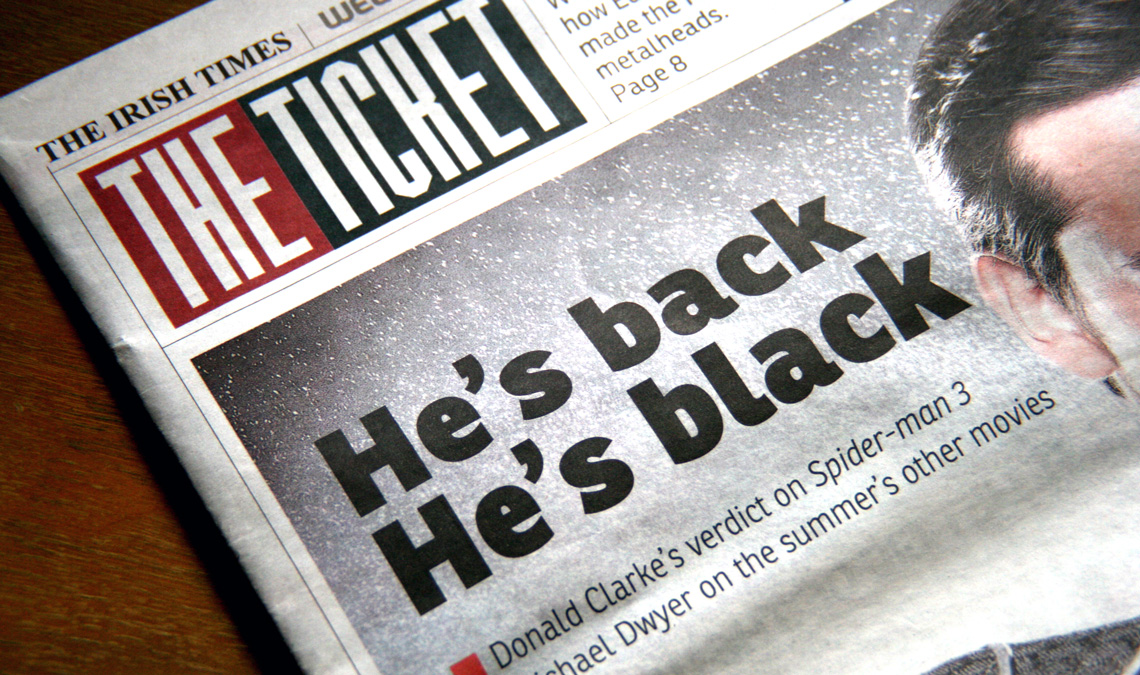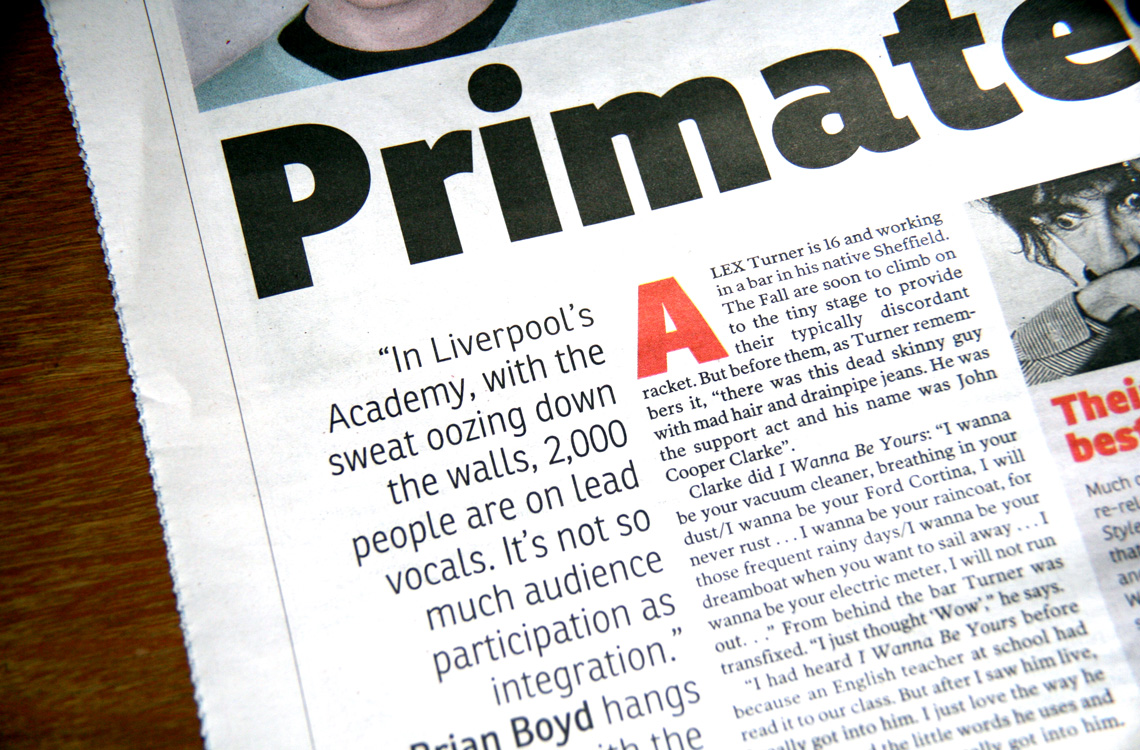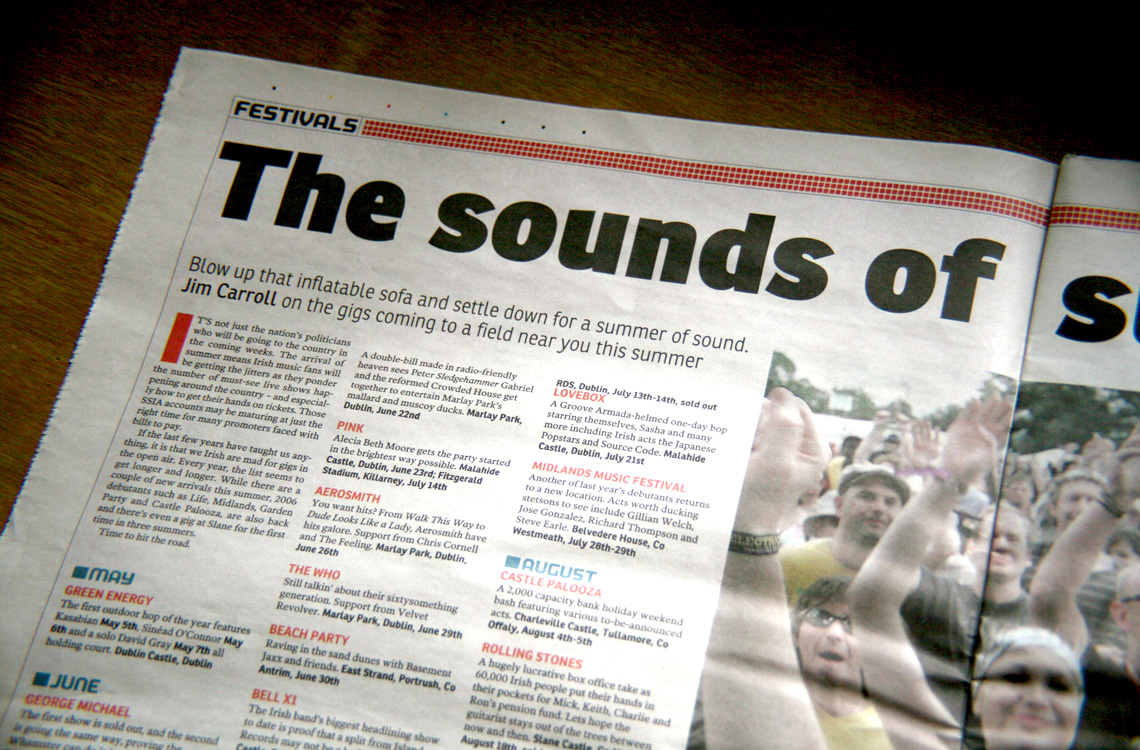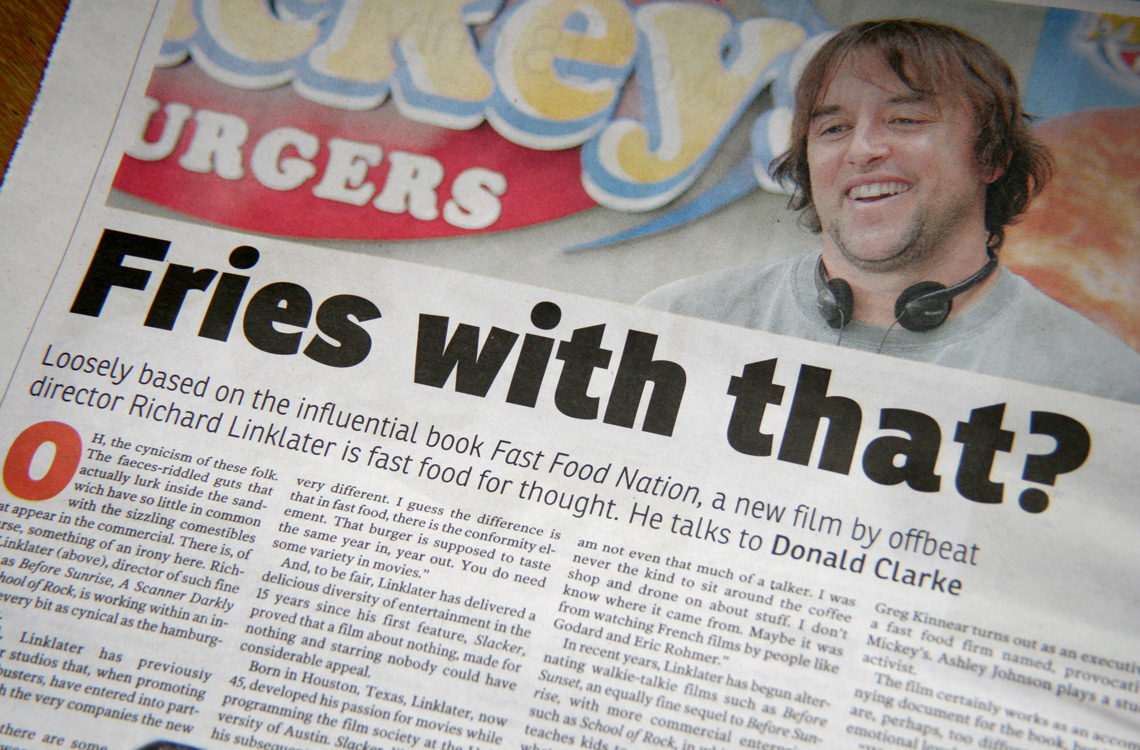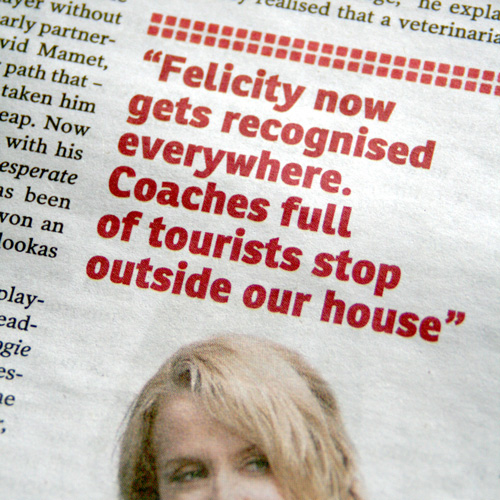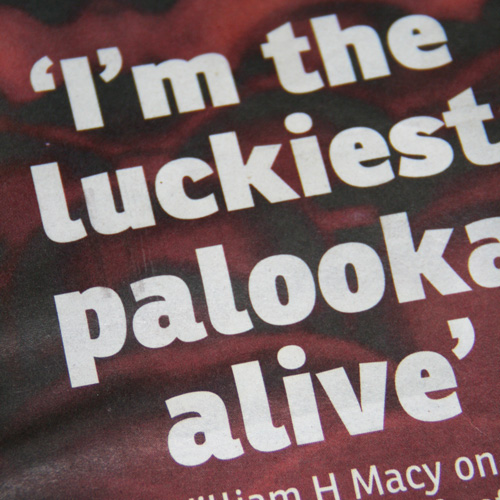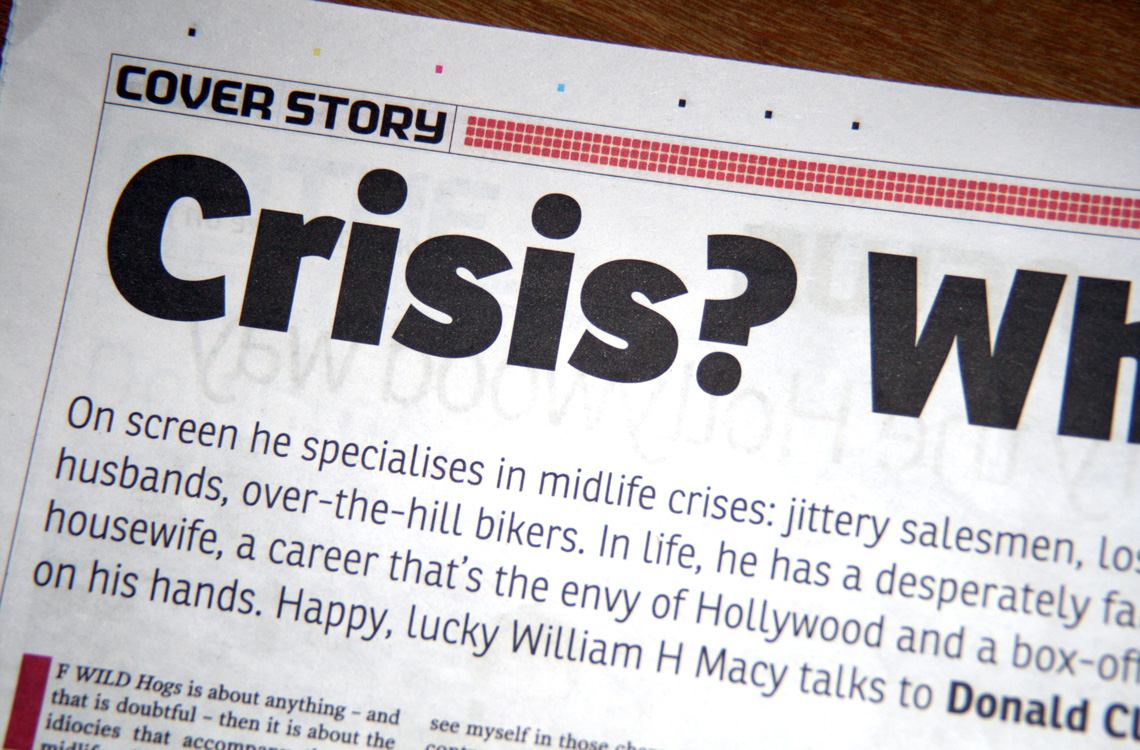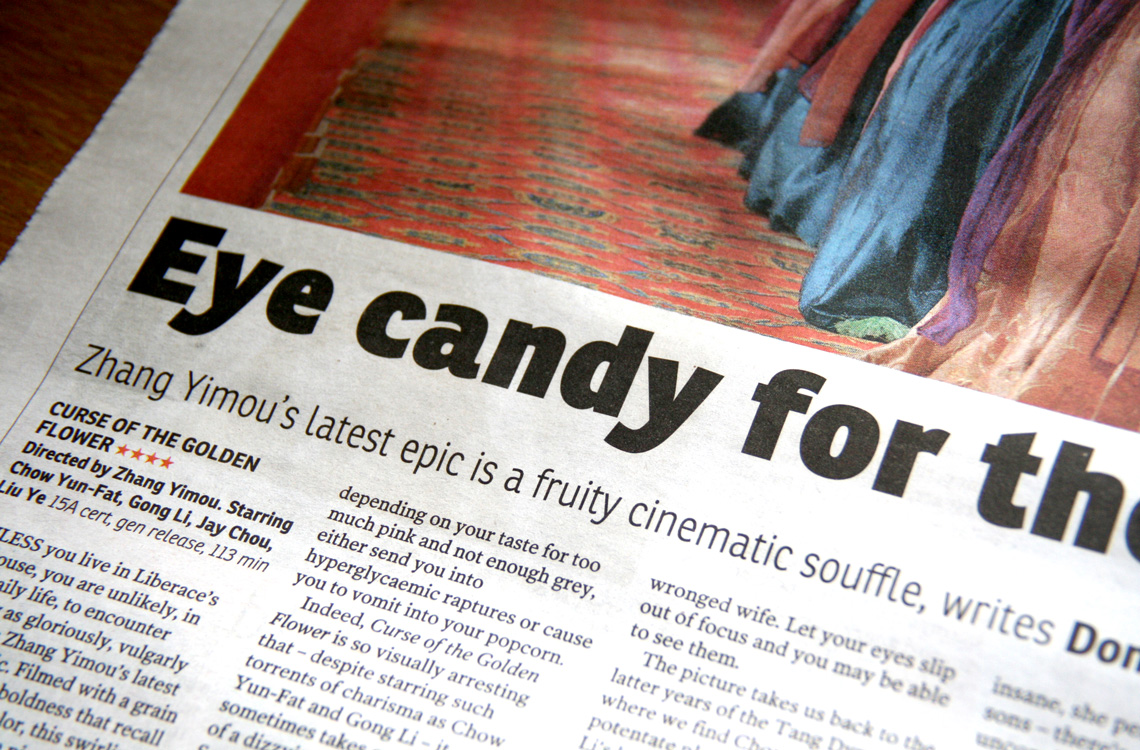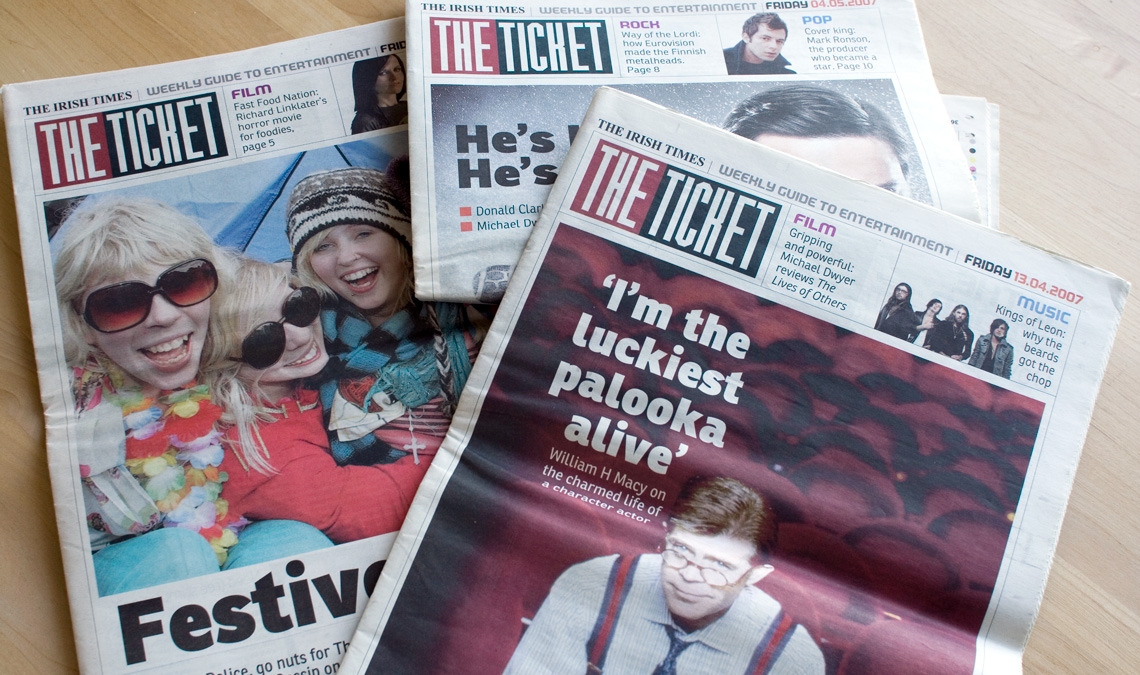
The Irish Times
The Ronnia font family is being used powerfully in the headline titles of the entertainment section of the Irish Times.
Ronnia, the award-winning personable humanist sans serif font is put to very good use in The Ticket, a weekly entertainment magazine that is published with the Irish Times newspaper. The design firm Palmer Watson Ltd. and Matthew Ball were responsible for the original design of The Ticket, taking advantage of the versatility of this newspaper fonts family at different sizes, from headlines to small texts. The Ticket editor is Conor Goodman and the designer is Anthea McTeirnan.